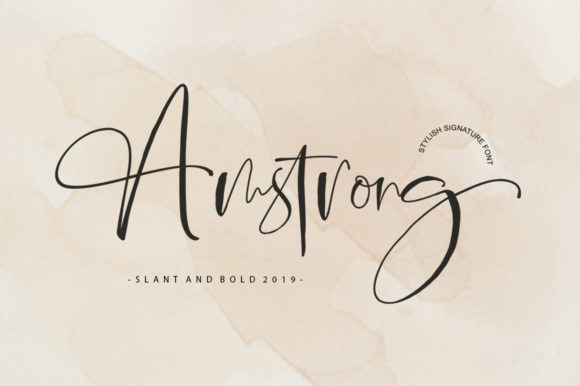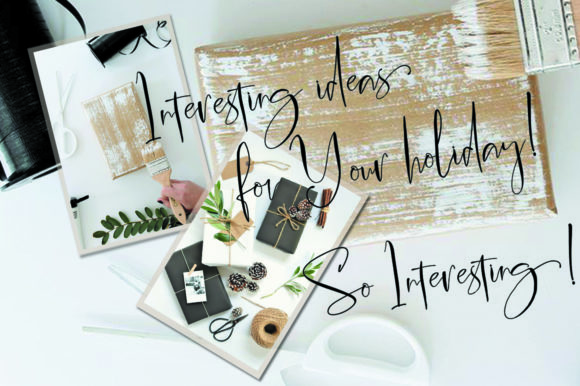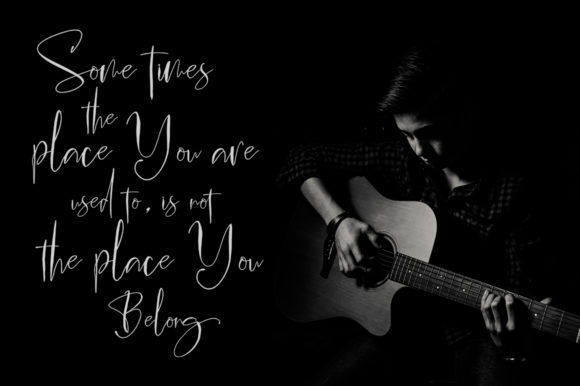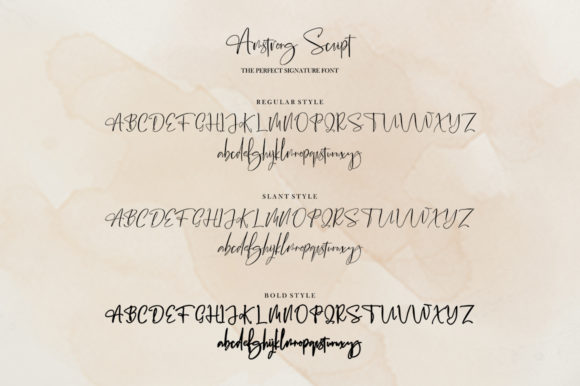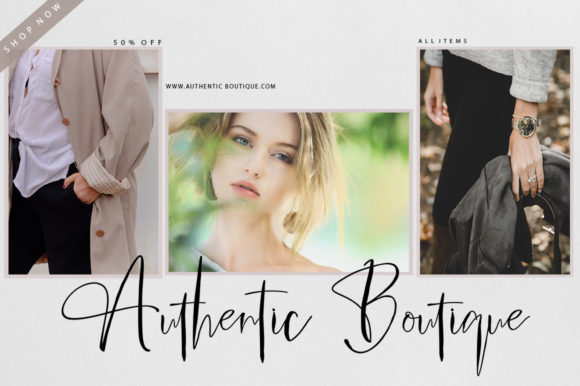
Amstrong Script Font
About Amstrong Script Font
The Amstrong is an amazing signature script. This classic thin font with an italic style is perfect for adding an elegant touch to your designs.
It’s perfect for logos, branding projects, design of household appliances, product packaging, mugs, quotes, posters, shopping bags, logos, t-shirts, book covers, business cards, invitation cards, greeting cards, and all your other beautiful projects.